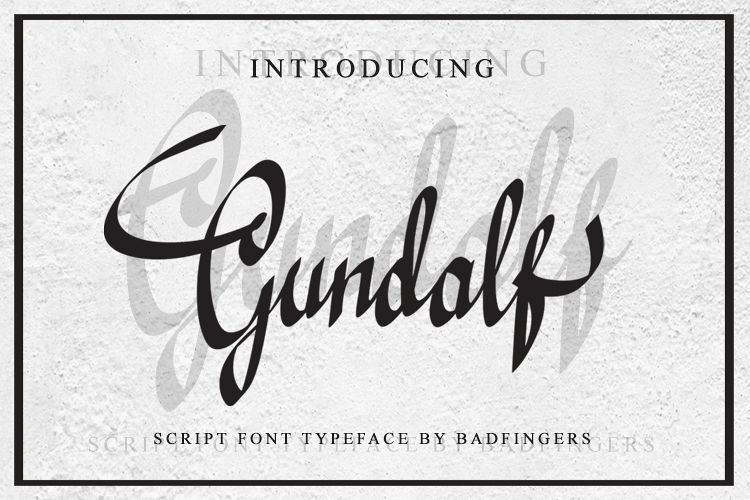
Gundalf font
Gundalf is
the latest font from me with a comparison of the previous one. With
different writing syles that combine script fonts and elegant forms, it
can be applied to various needs, such as logos, magazine cover, quotes,
latters, invitations, wedding invitations, brand, merchandise brands,
clothing, product, and other.
Including alternates.